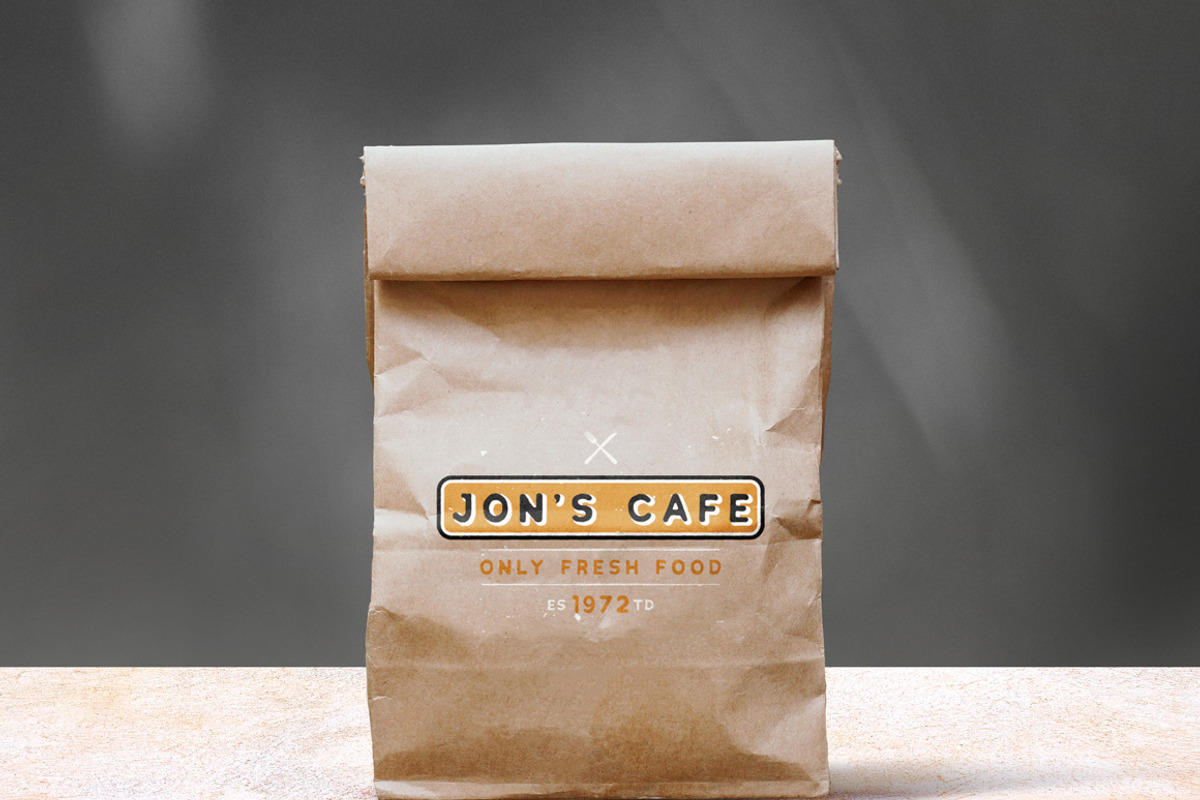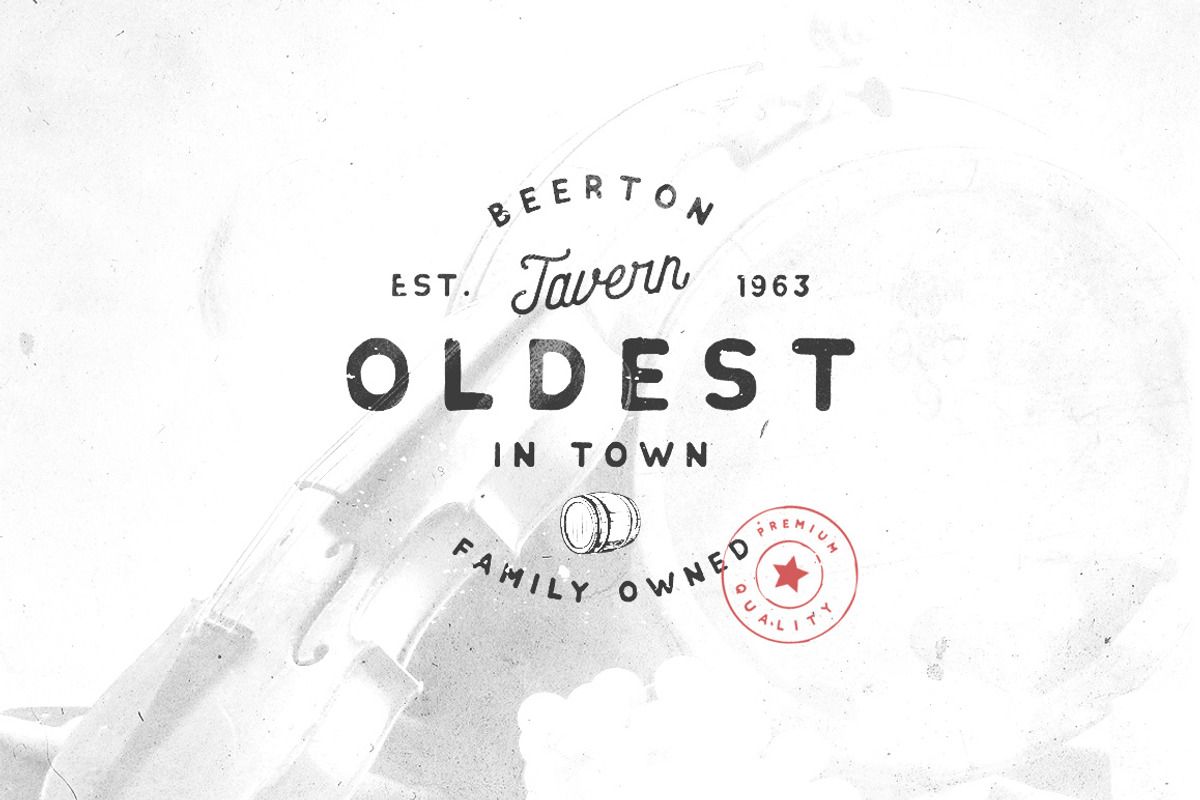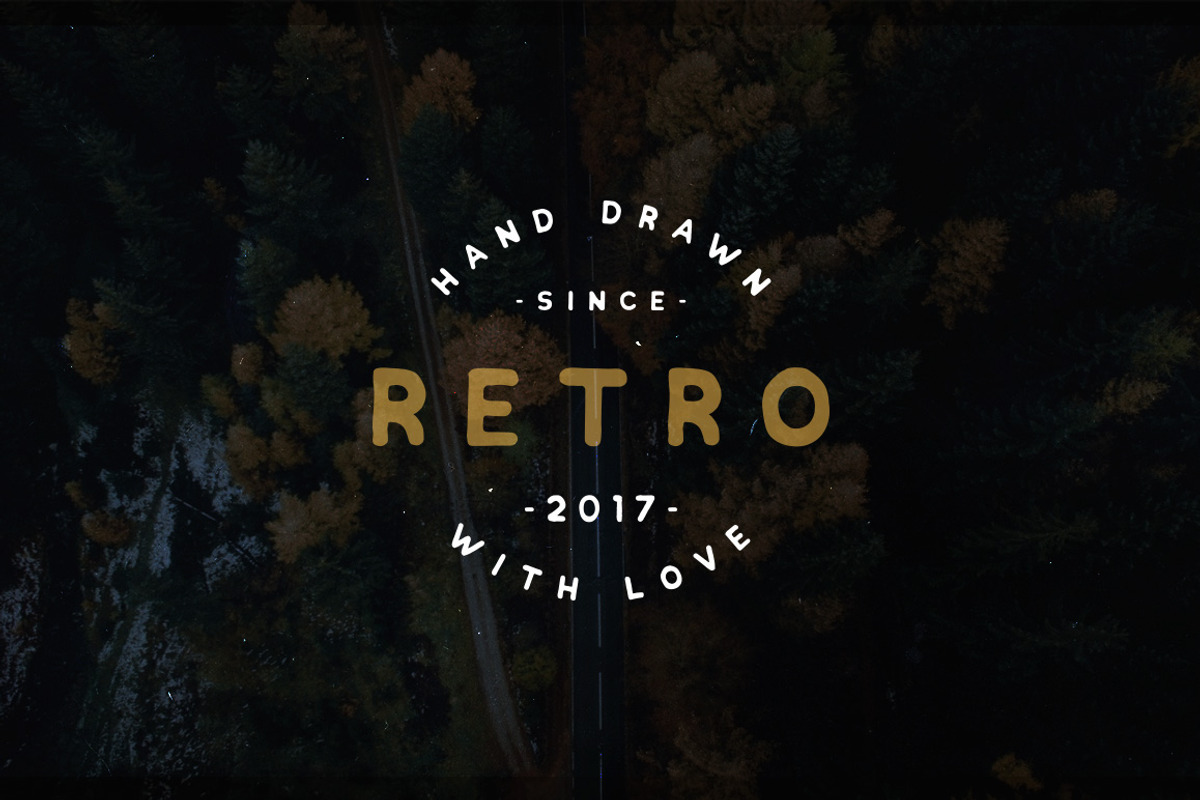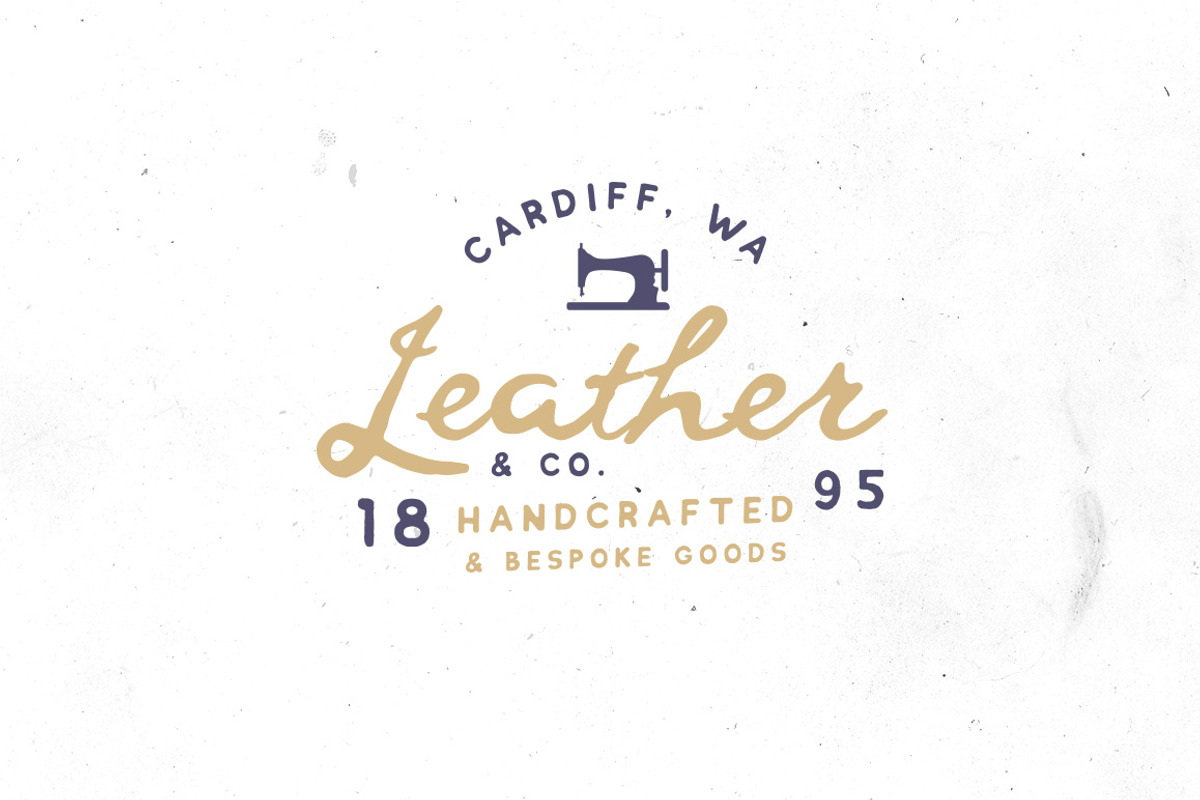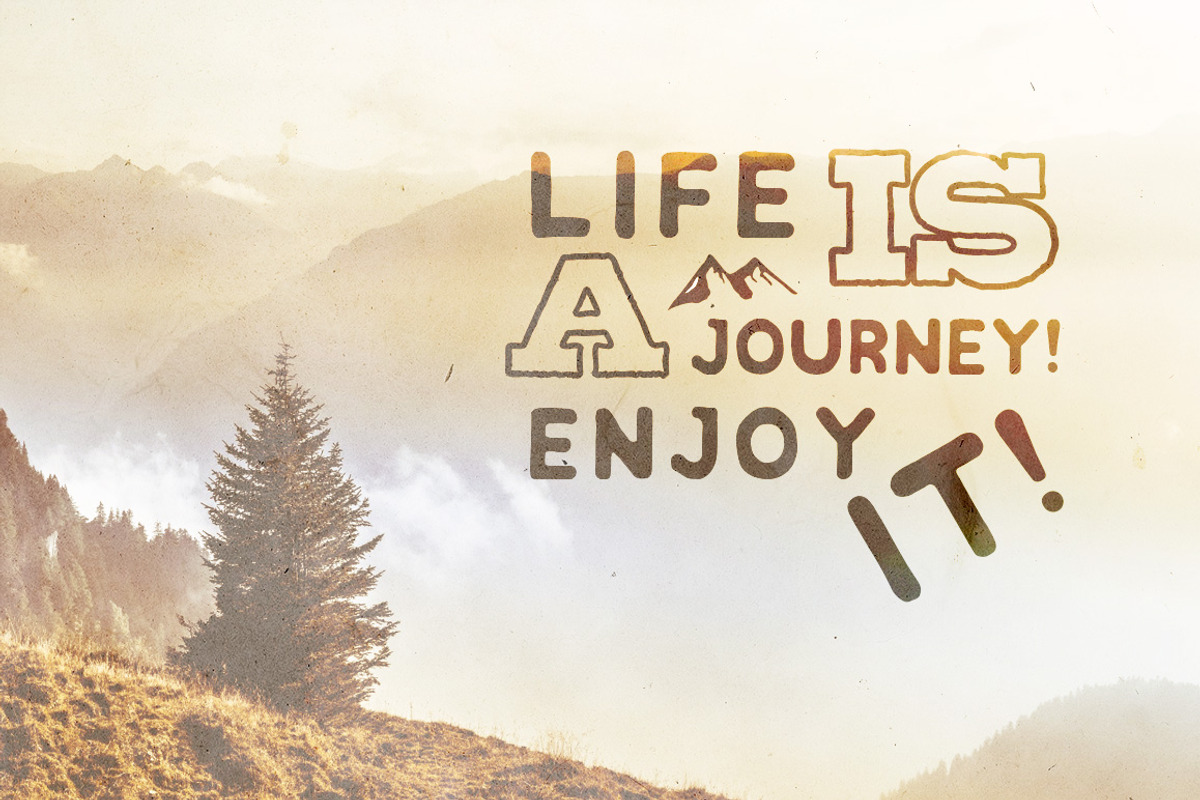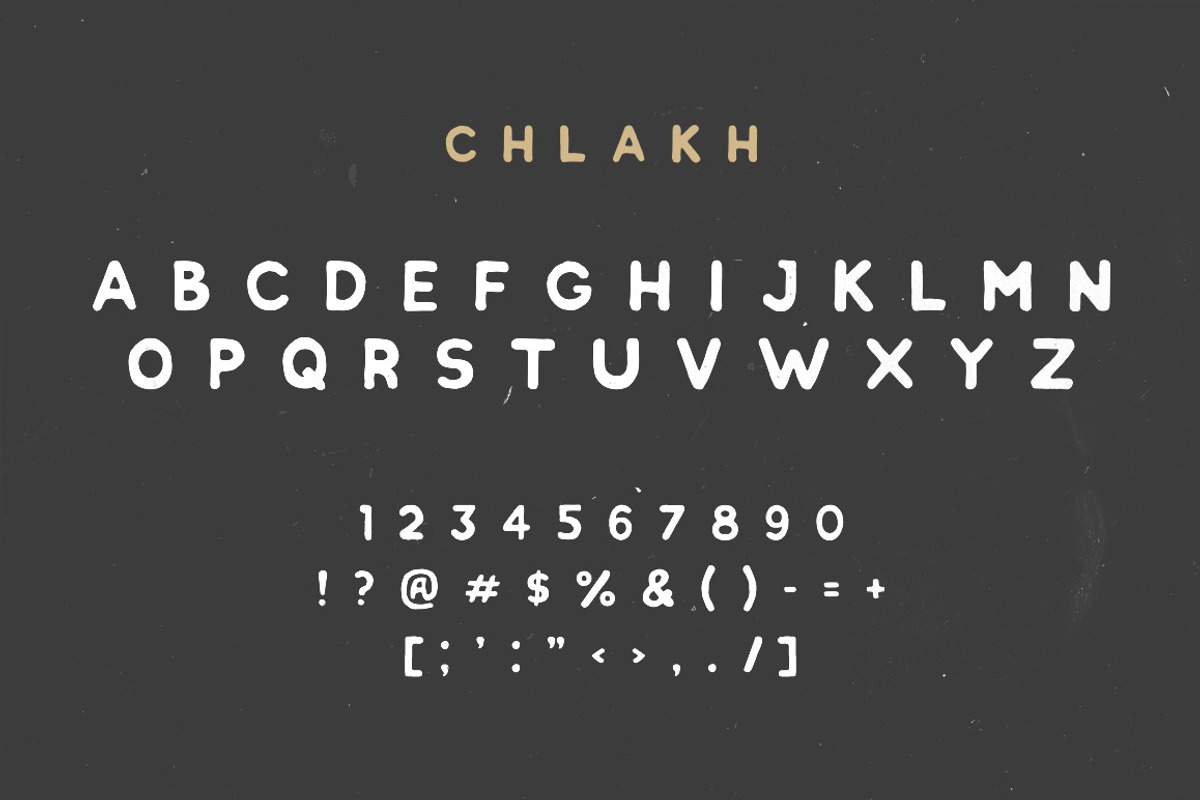
Chlakh - Hand Drawn Typeface
Chlakh - hand drawn retro inspired typeface.
As you can see in my store, I am a lover of vintage. This font is a wonderful complement to vintage goods in my shop. That is why it is perfect for creating retro logos, badges, labels. However, the use of this font is not limited to just logos. It's also suitable for t-shirt prints, food packaging, business cards, flyers, posters, ads, restaurant menus, signs, typography design, quotes and any graphic design.